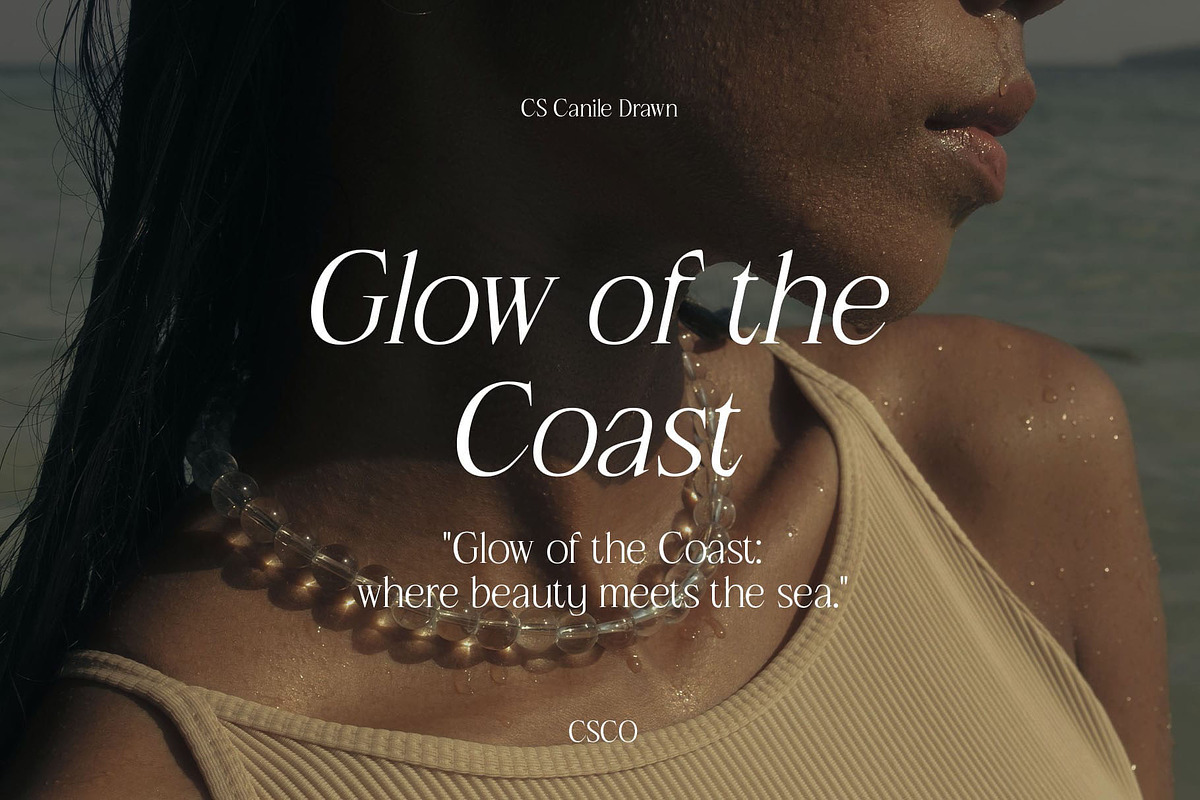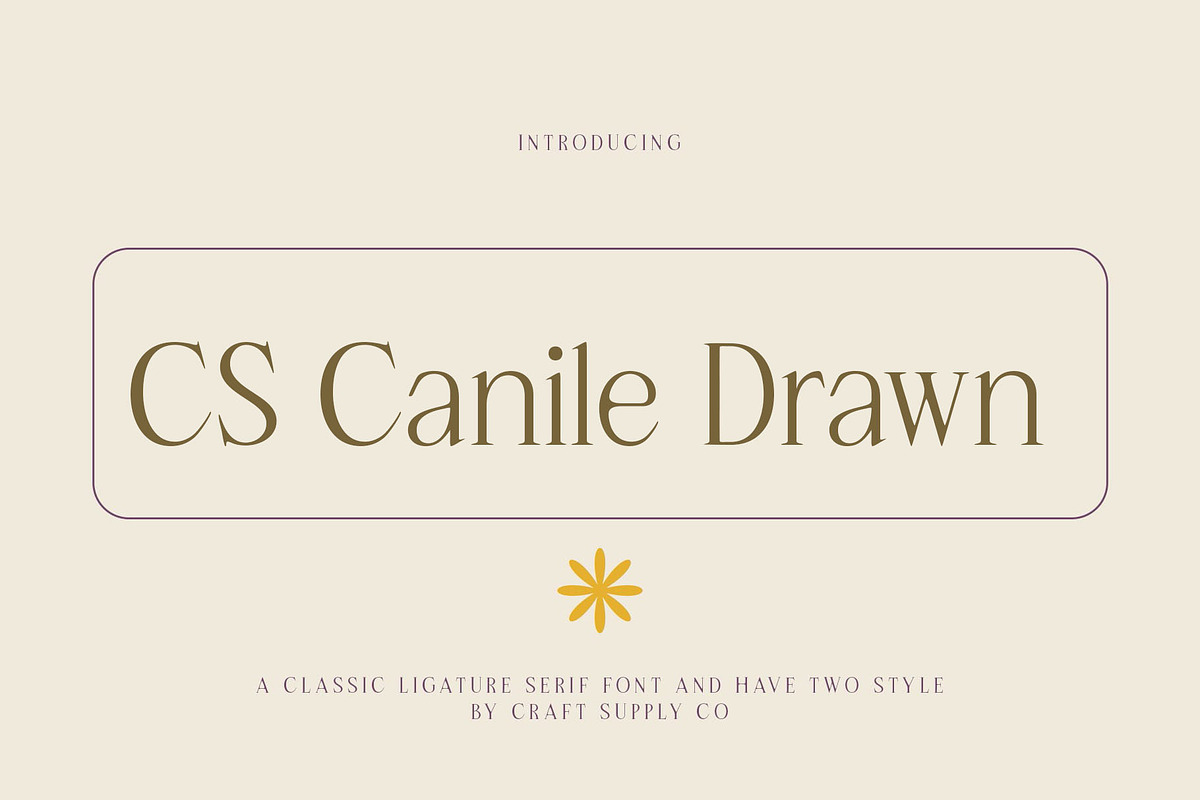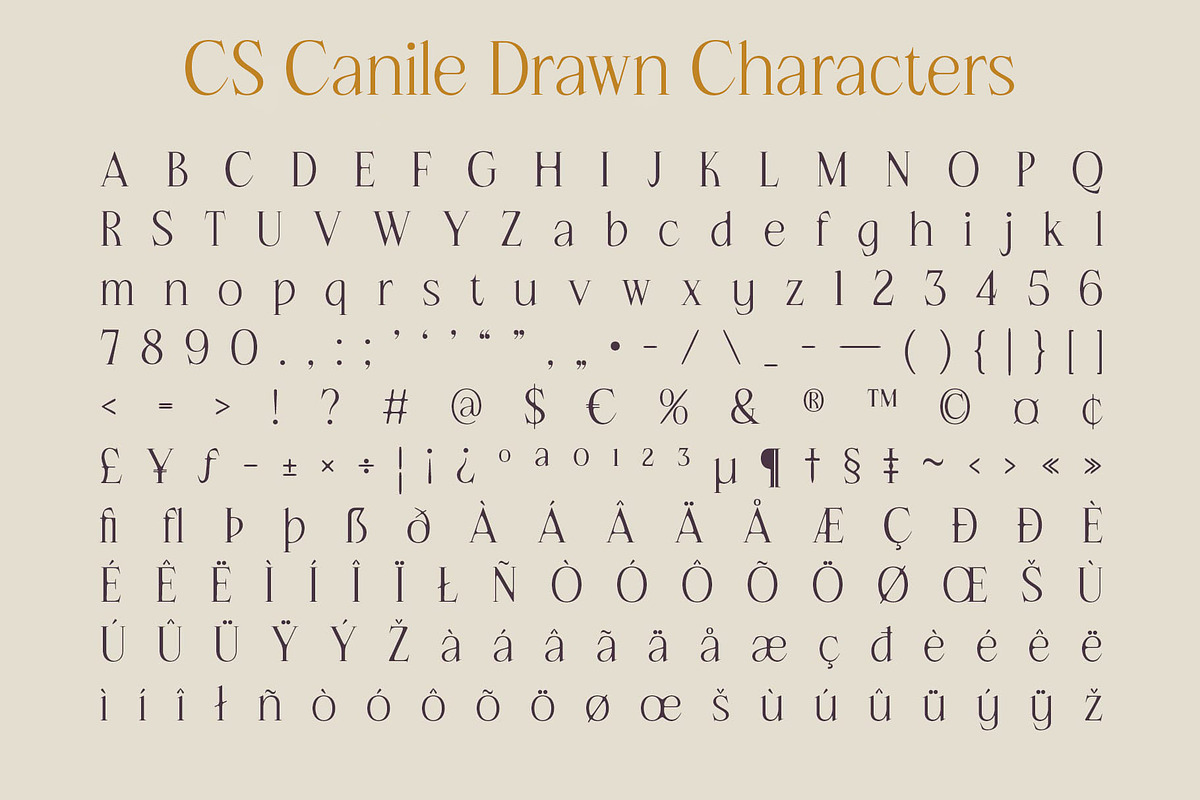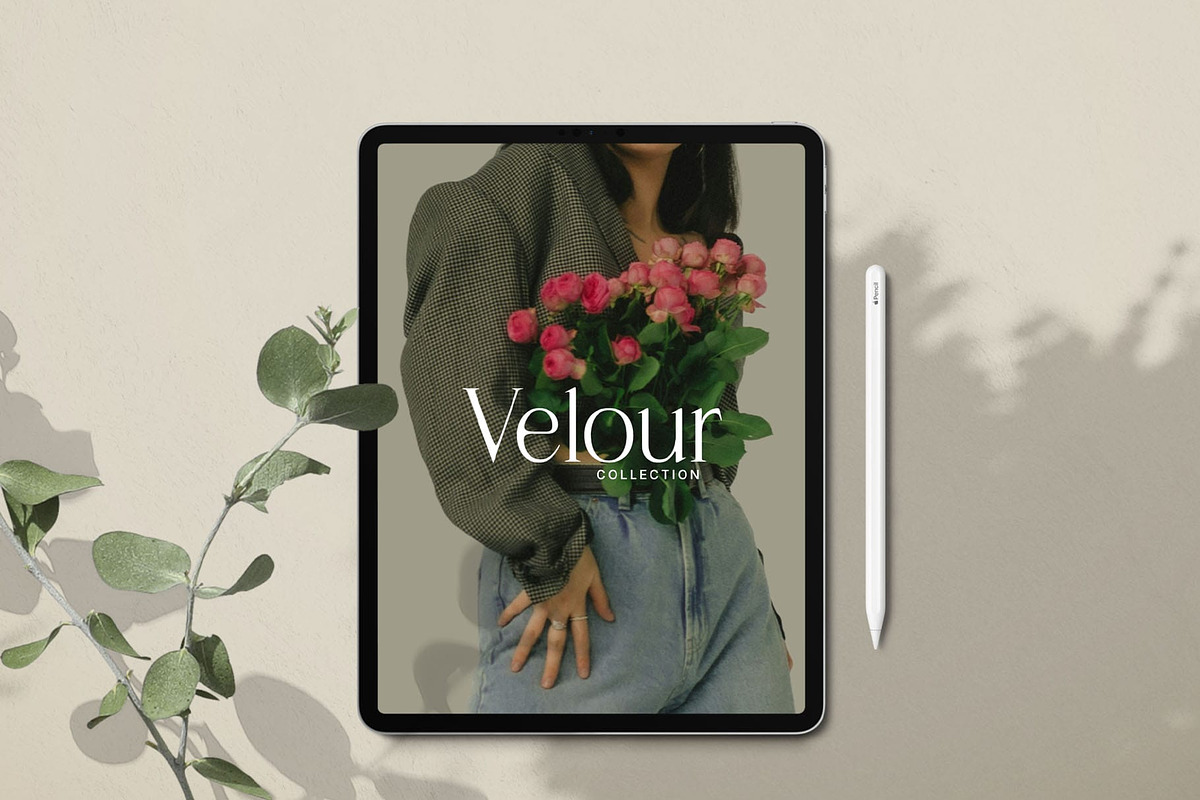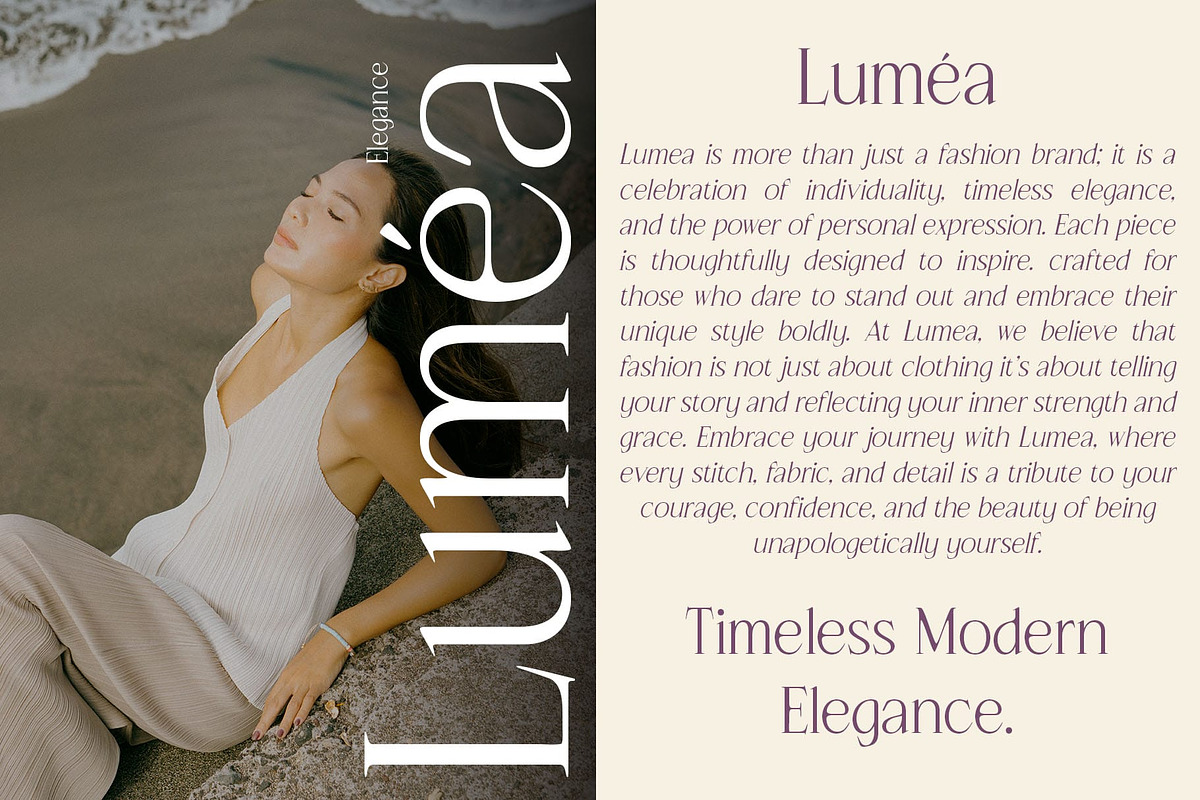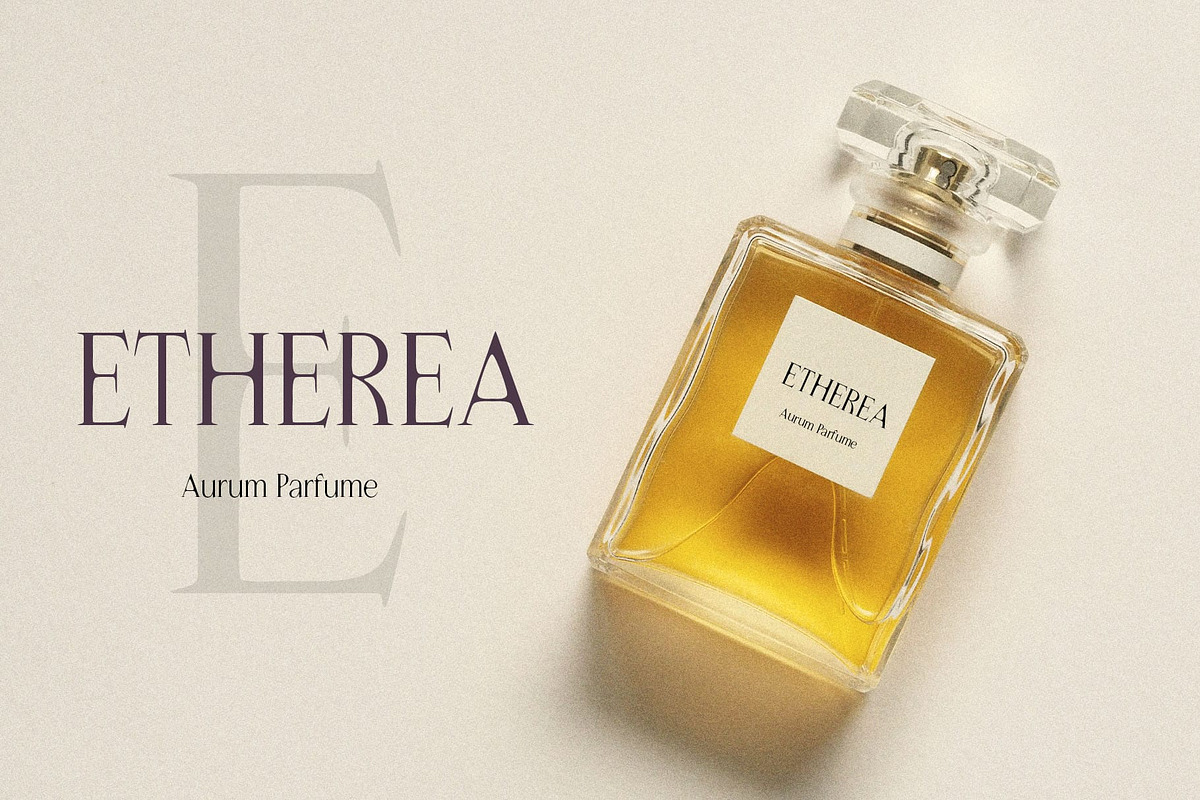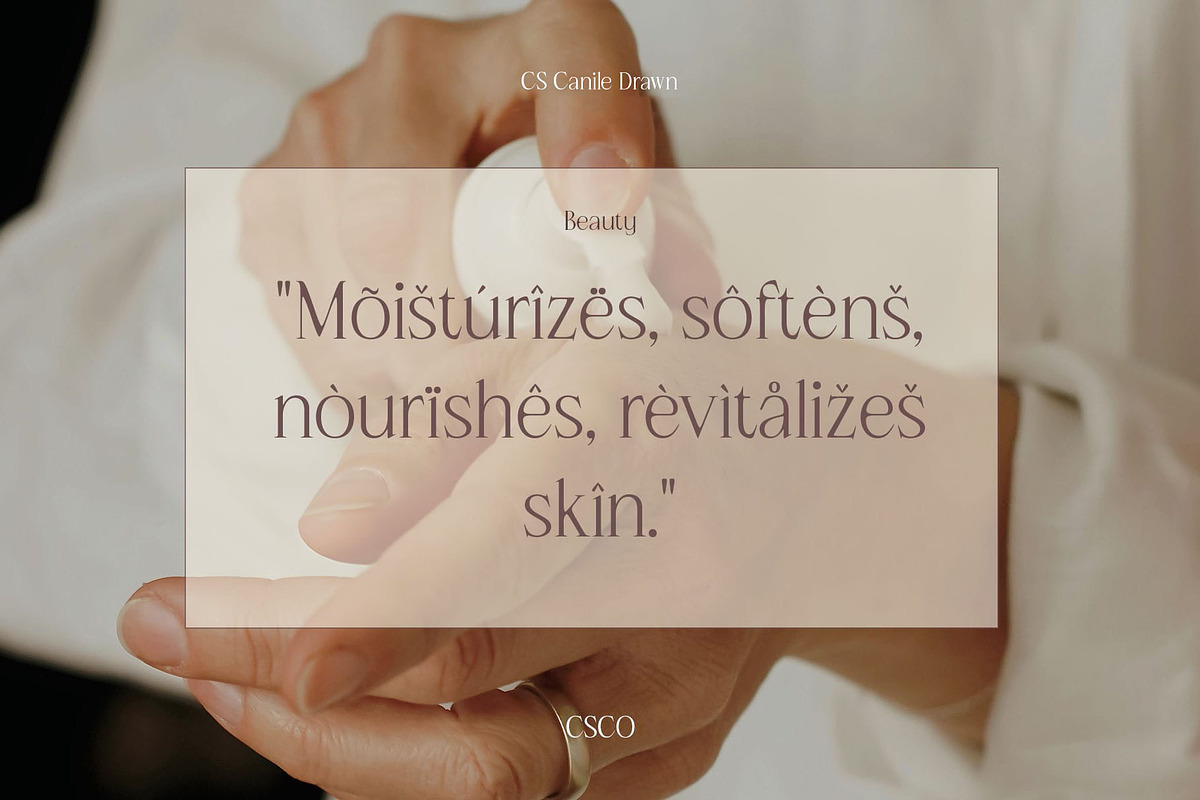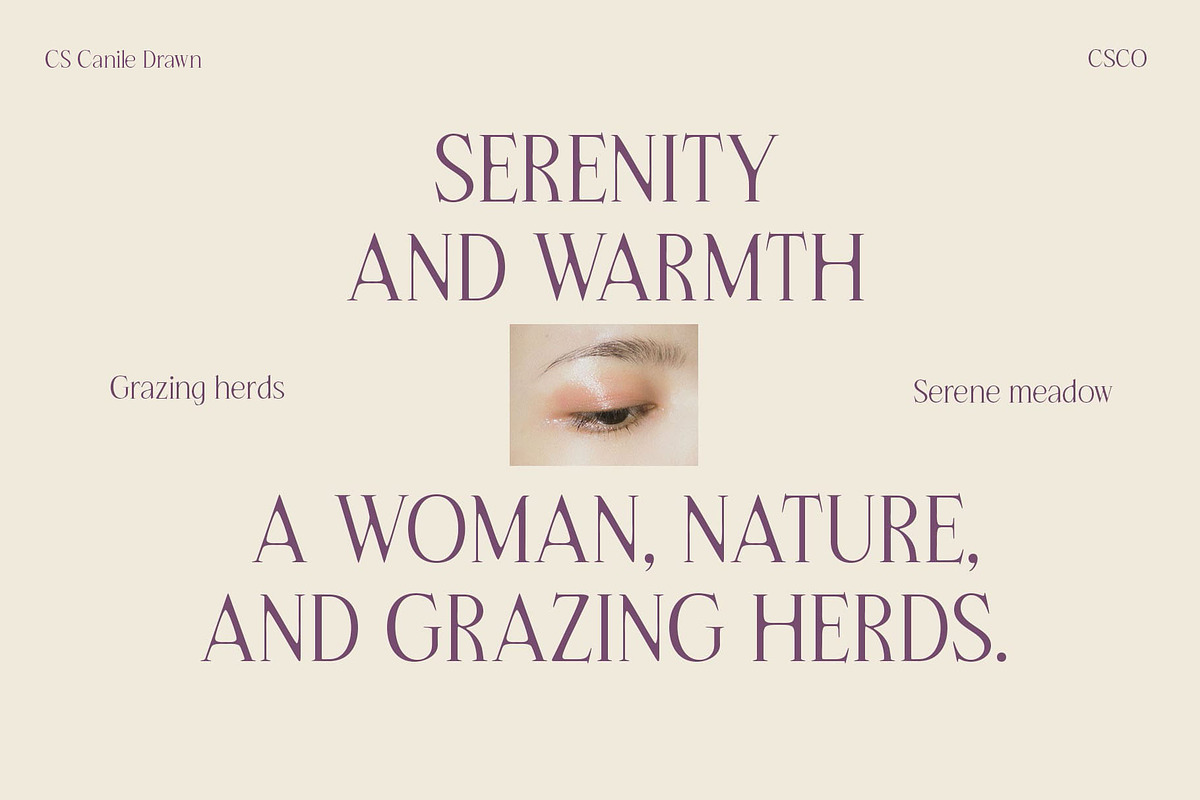
CS Canile Drawn
CS Canile Drawn – Hand-Drawn Serif Font
Refined Sophistication with an Artistic Touch This is a modern serif font that combines clean, minimalist design with elegant lines, enhanced by a unique hand-drawn effect. This blend of sophistication and artistry gives the font a refined yet organic look, making it an ideal choice for projects that seek to combine elegance with a personalized, creative touch.
Elegant and Versatile for High-End Branding The minimalist design of this drawn font brings a sense of clarity and professionalism, while the hand-drawn details add an element of uniqueness. This versatility makes the font perfect for high-end branding, editorial projects, and other design ventures that require a modern, yet distinctive, typeface. Whether used for luxury products, creative campaigns, or upscale publications, this font offers an elegant solution for a wide range of applications.
Creative Flair with Timeless Appeal The artistic hand-drawn effect provides a contemporary feel while maintaining a timeless appeal. It works beautifully in designs that need to stand out while maintaining a sense of sophistication. From fashion branding to editorial layouts, this drawn font exudes a subtle charm, giving projects a refined, artistic edge that’s perfect for designs seeking a blend of modernity and timeless elegance.